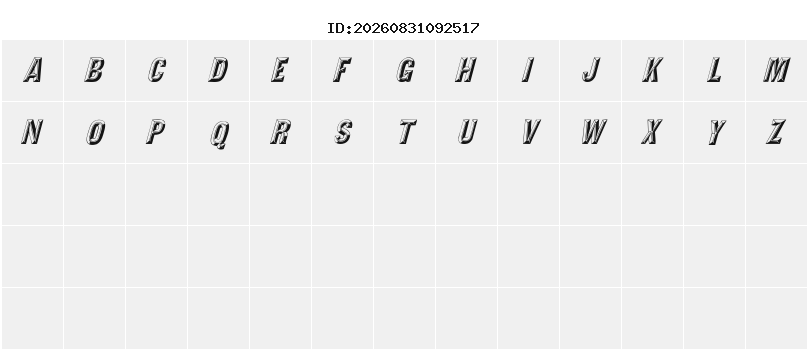
Tejaratchi italic Preview
• Font Name: Tejaratchi italic
• Full Font Name: Tejaratchi Italic
About Tejaratchi italic.ttf
Tejaratchi italic.ttf is a modern, elegant sans-serif font designed for ultimate readability and visual harmony. Perfect for branding, headlines, web design, and print materials.